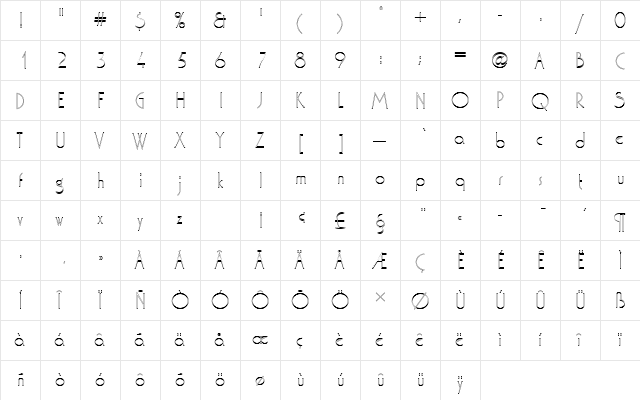
WashingtonDExtLigOu1 Regular Font Preview
WashingtonDExtLigOu1 Regular
WashingtonDExtLigOu1 Regular Font Details
Design Context for WashingtonDExtLigOu1 Typeface
WashingtonDExtLigOu1 takes a measured approach to typography — its balanced proportions and neutral character make it a reliable workhorse for both digital and print work.